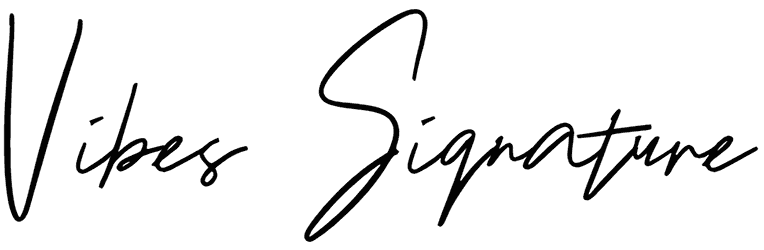
Vibes Signature Font
Vibes Signature could be a helpful tool if you’re in charge of a project with a friendly vibe. This handwritten font is great for a lettering or signature motif, and it also works well on book covers and magazine articles, despite the fact that it can be tough to read.